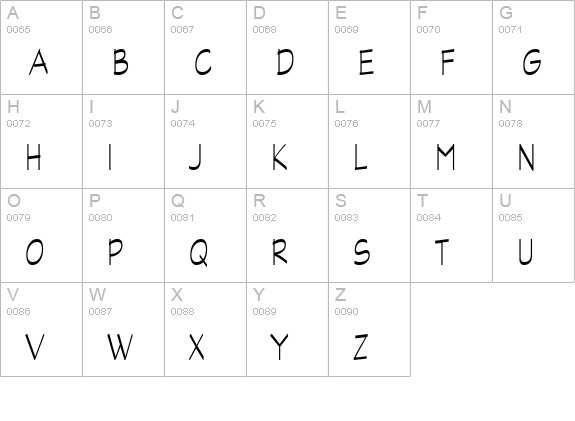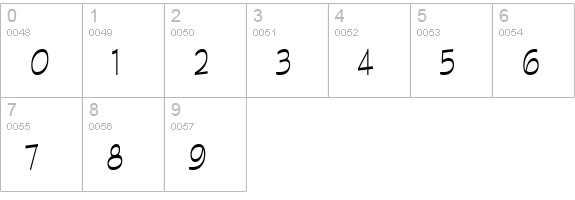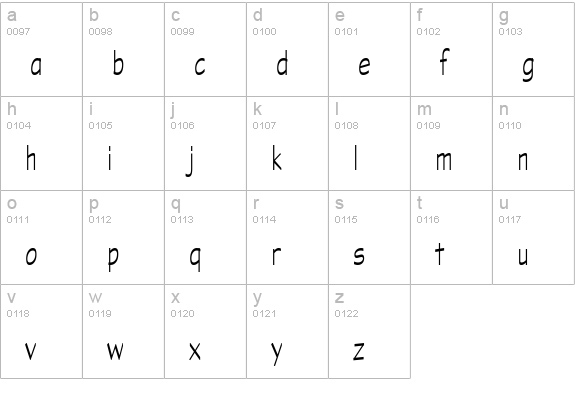
Graphite Light Narrow is a refined, elegant, condensed-width variant in the Graphite typeface family \xE2\x80\x94 well suited to elegant body text, refined sub-headings, and luxury branding.
Graphite Light Narrow font is a modern and sleek typeface that exudes elegance and sophistication. Its narrow design allows for a clean and polished appearance perfect for a wide range of design projects. The light weight of the font adds a touch of subtlety and refinement, making it ideal for conveying a sense of minimalism and simplicity. What makes Graphite Light Narrow font even more appealing is that it is available for free download at FontsMarket.com. This means that you can easily access this stylish typeface and incorporate it into your designs without any additional cost. With its versatility and charm, Graphite Light Narrow font is sure to elevate your projects and captivate your audience.